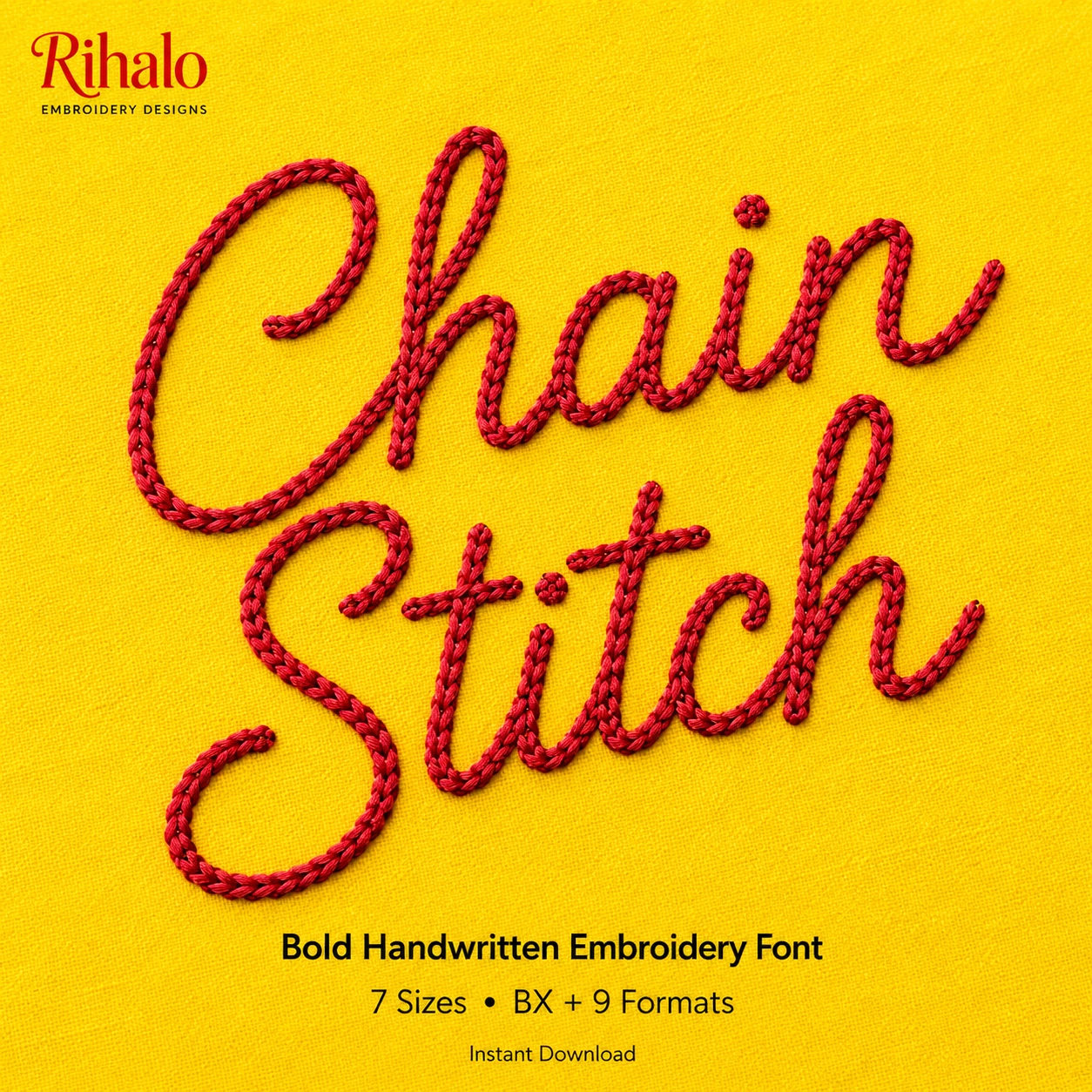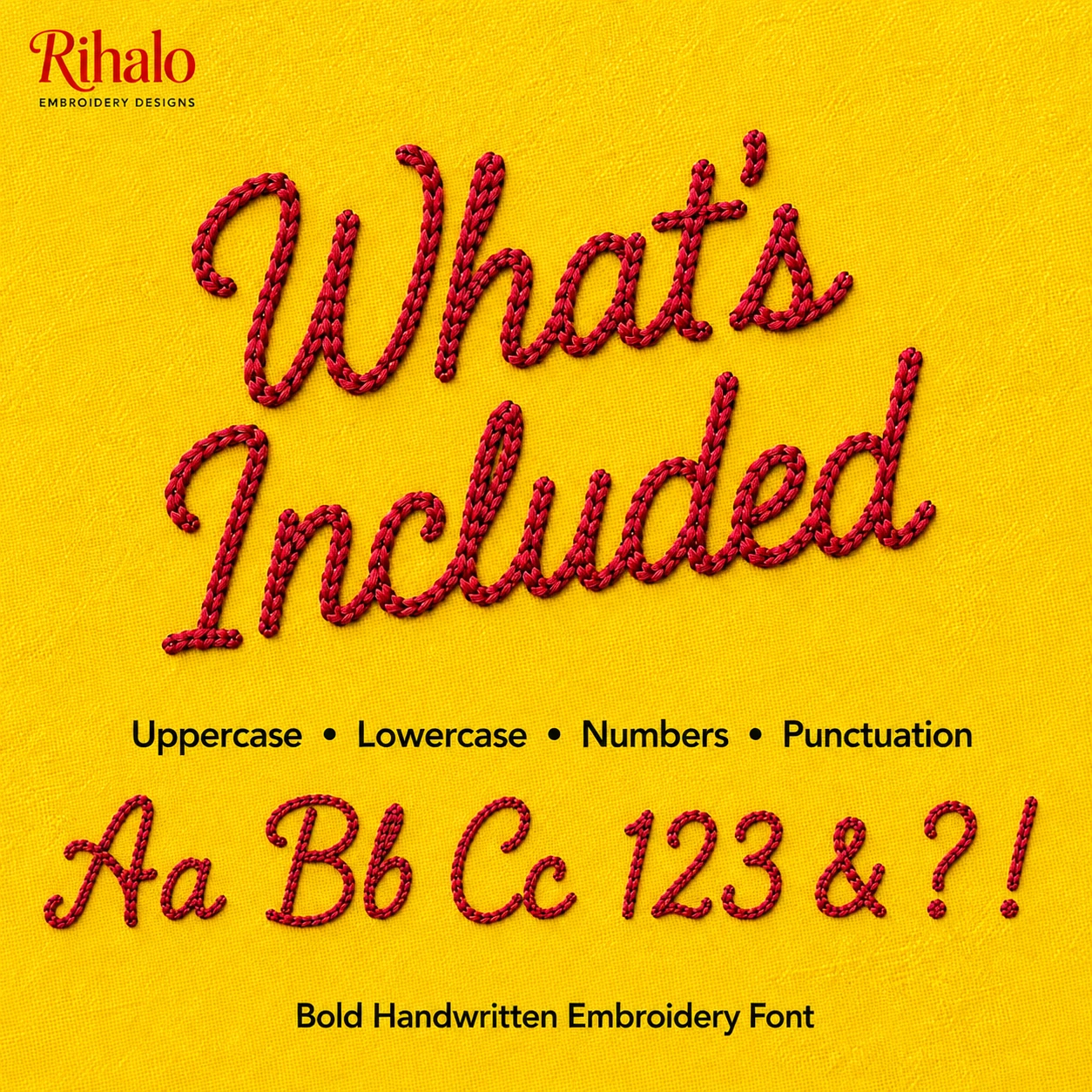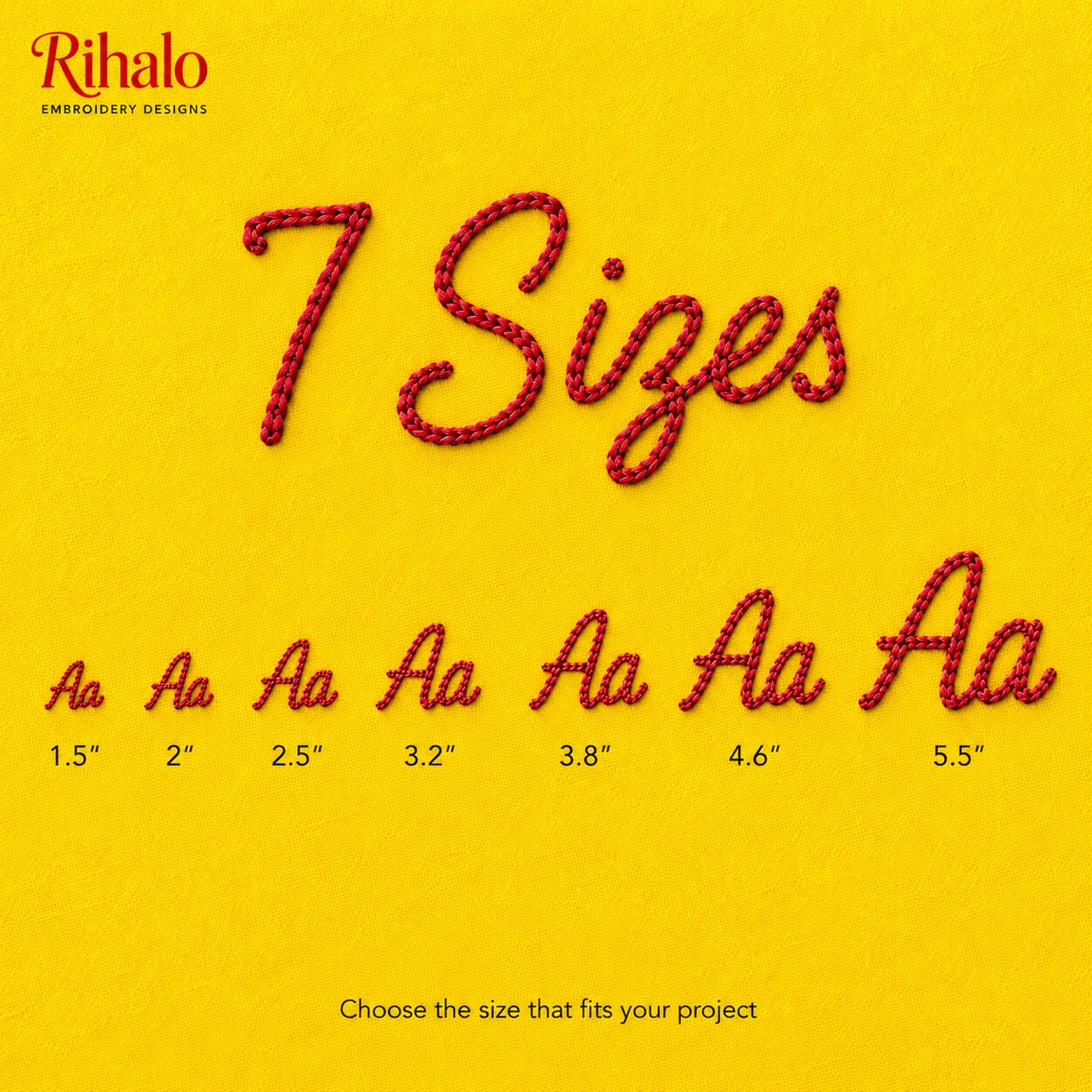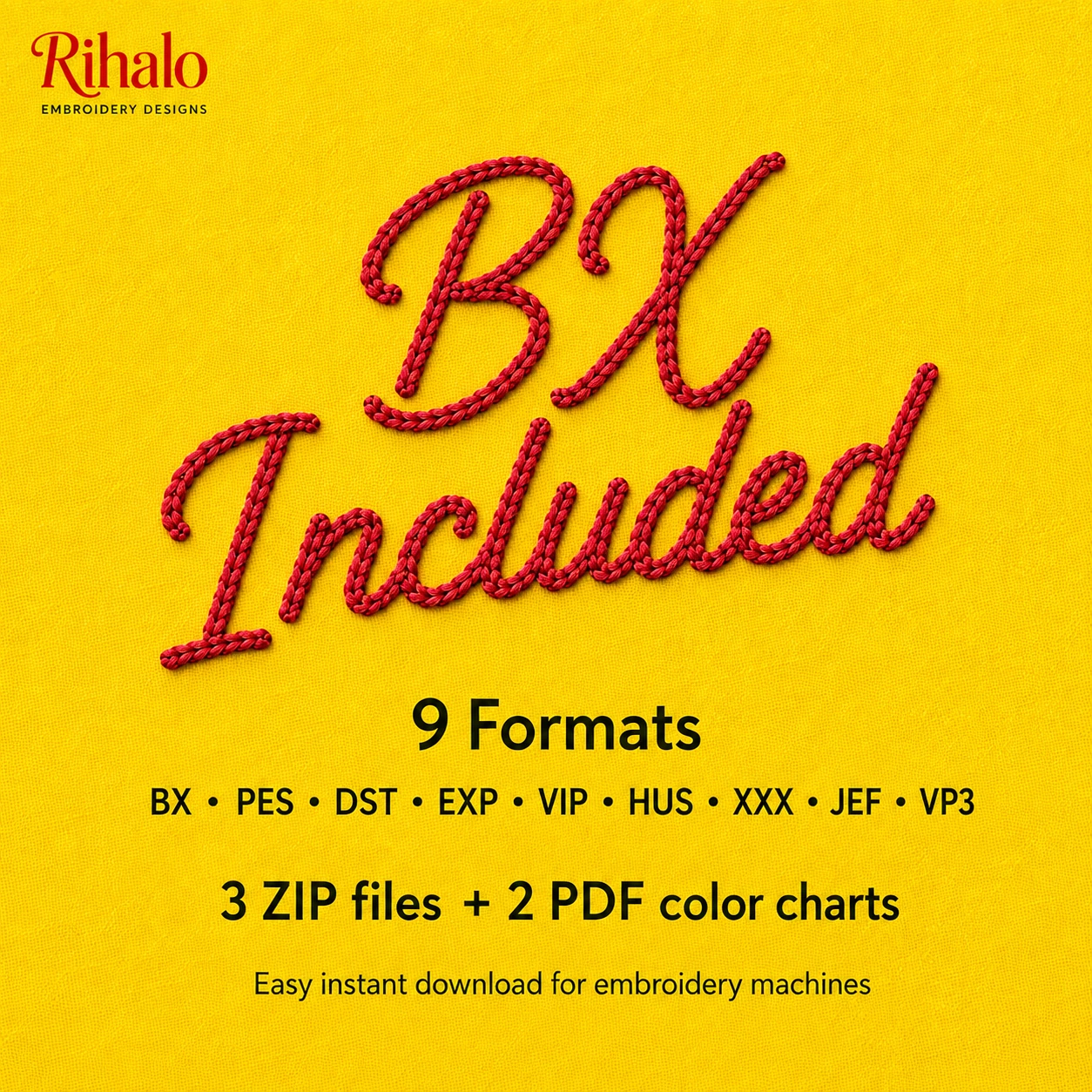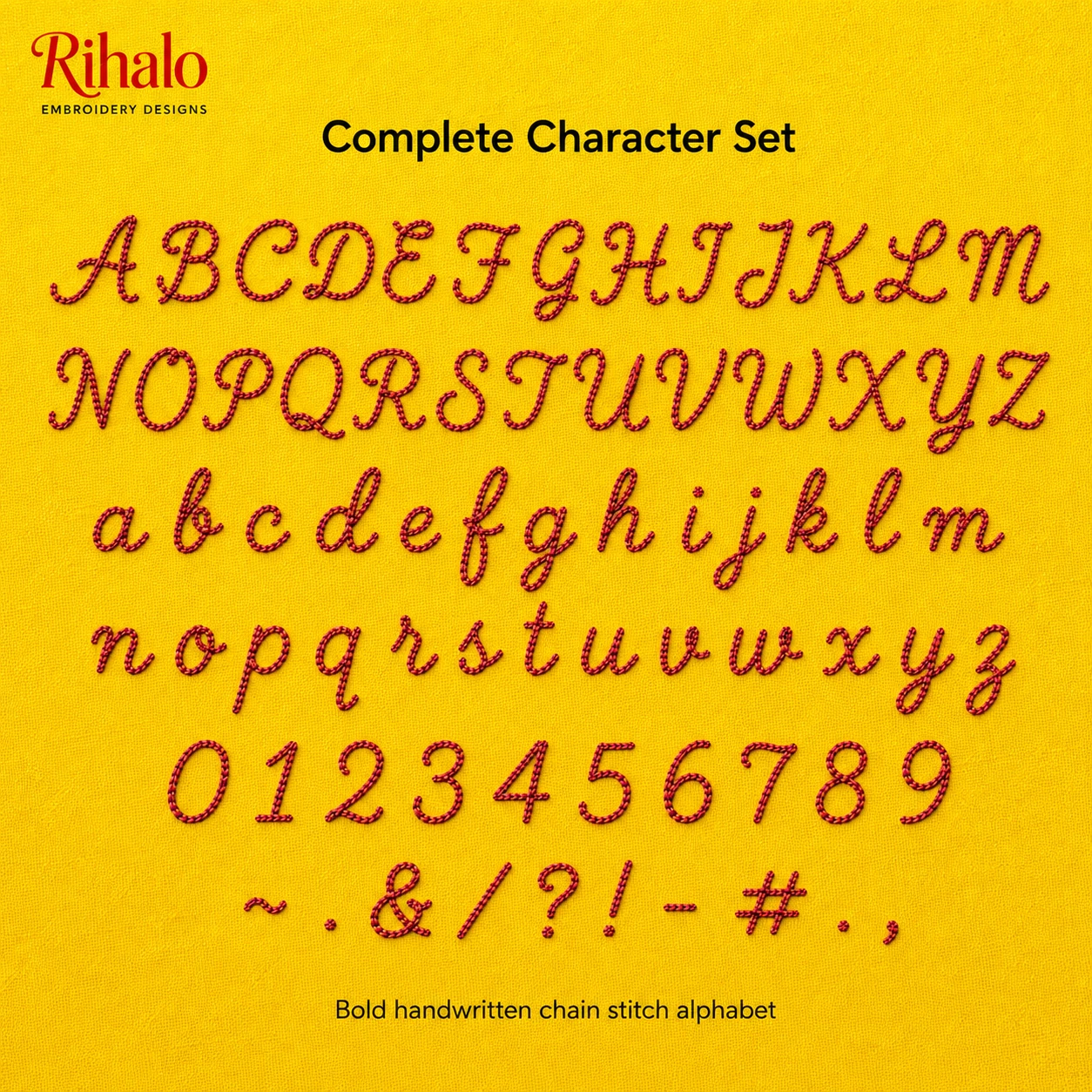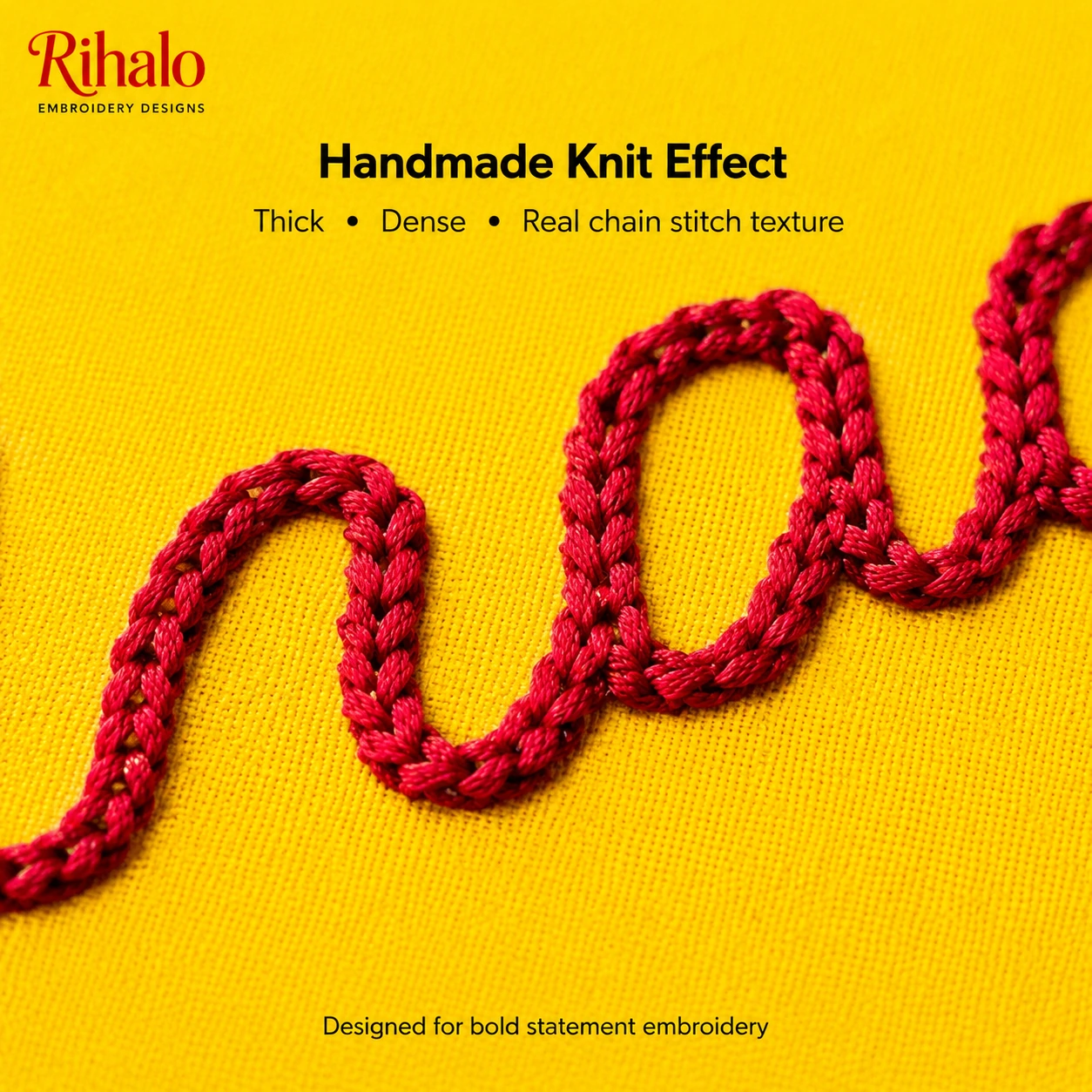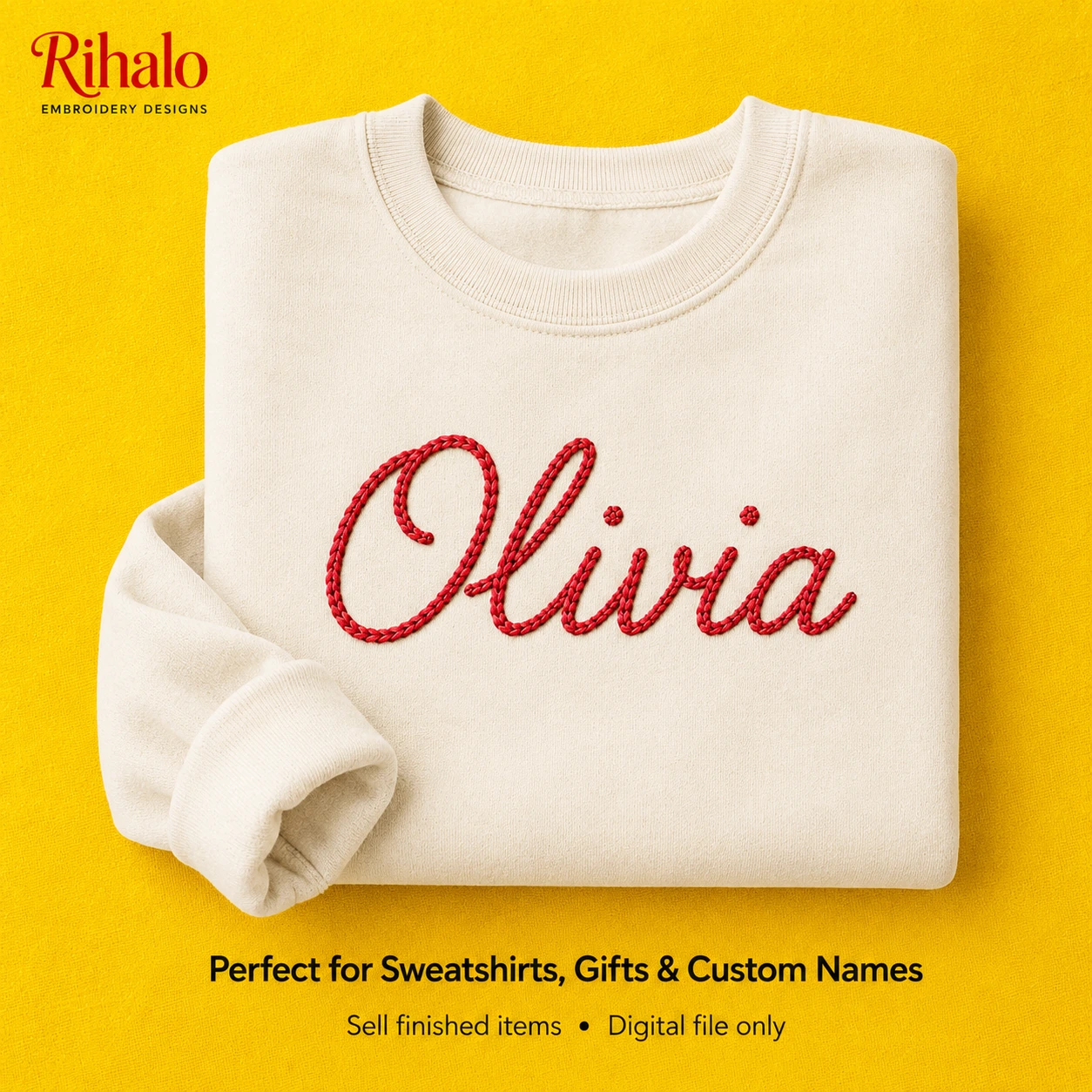
Create bold, textured embroidery with this Thick Chain Stitch Embroidery Font.
Designed with a dense handwritten chain stitch appearance, this machine embroidery alphabet creates a beautiful handmade knit effect that stands out on sweatshirts, clothing, personalized gifts, custom names and statement embroidery projects.
The complete font includes uppercase letters, lowercase letters, numbers and punctuation, giving you everything you need to create names, words, monograms and personalized designs.
Choose the size that best fits your embroidery project, from smaller personalized designs to large statement lettering for sweatshirts and apparel.
Complete Character Set
The font includes:
A–Z Uppercase Letters
a–z Lowercase Letters
0–9 Numbers
Punctuation & Symbols